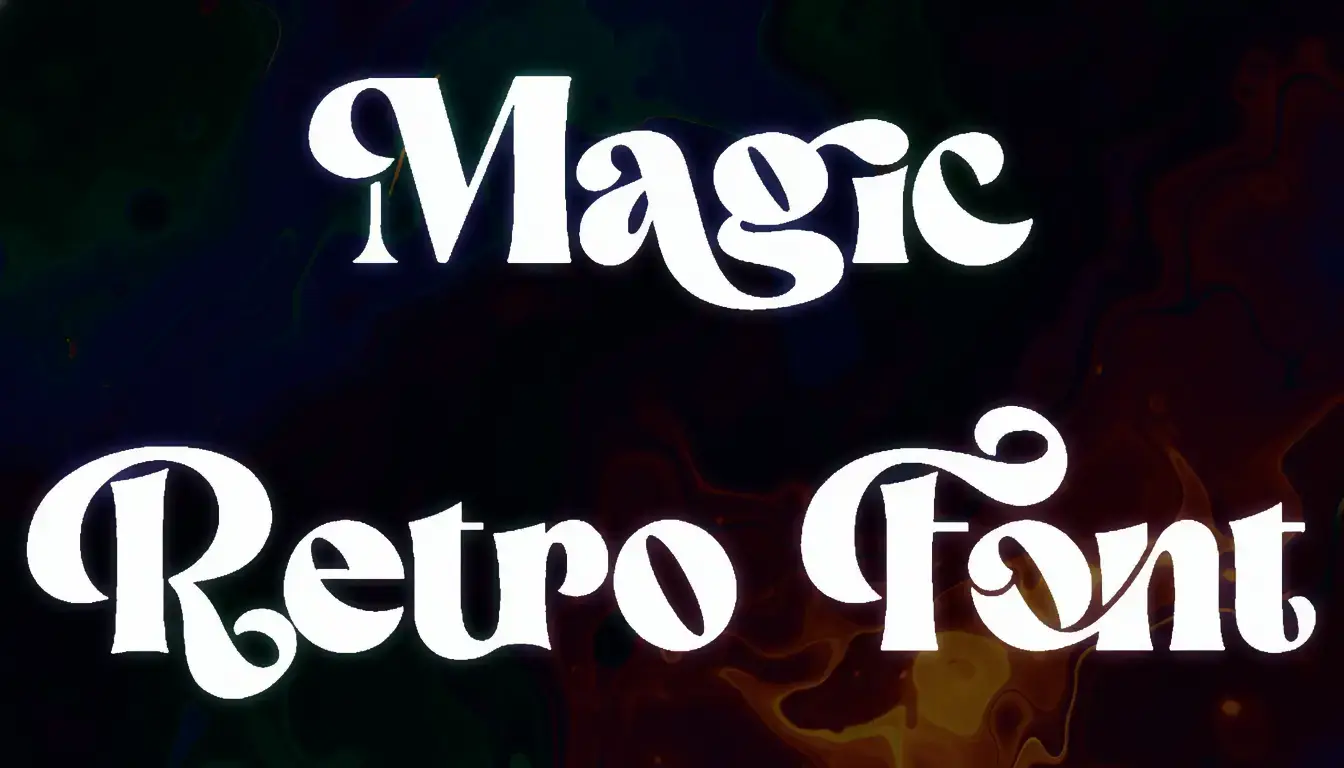
Magic Retro Font
Magic Retro
Magic Retro is a fancy font designed by Burhan Afif and published by HansCo. Bold and full of character, it's built to stand out rather than blend in. You can download it for free and test it with your own words in the preview above.
What You Can Type With Magic Retro
You get every letter from A to Z in both cases and all the numbers from 0 to 9, which means Magic Retro can handle full sentences, dates and prices. Everyday marks like &, !, ? and @ are there too. Thanks to its accented letters, it also works for Spanish, French, German, Portuguese and Italian, not just English.
Where Magic Retro Works Best
Magic Retro is a natural fit for posters, logos and eye-catching headlines. Use it for one standout word or headline and let simpler fonts handle the rest.
Does Magic Retro support accented letters?
Yes. Magic Retro includes the accented letters needed for Spanish, French, German, Portuguese and Italian, so it works for more than just English.